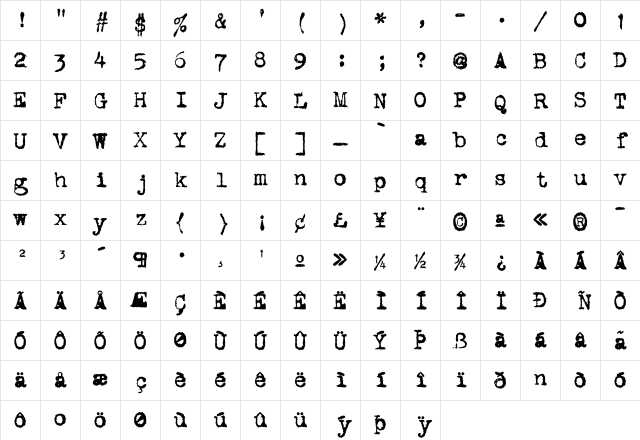
Complete VTypewriter Corona glyph index. Displaying only characters natively supported by VTypewriter Corona font.
VTypewriter uses fixed-width spacing throughout, giving it the structured, systematic character associated with coding environments and technical documentation.
Pro Tip: Use VTypewriter with slightly increased line-height for extended reading - fixed-width spacing can feel dense in longer passages without extra breathing room.